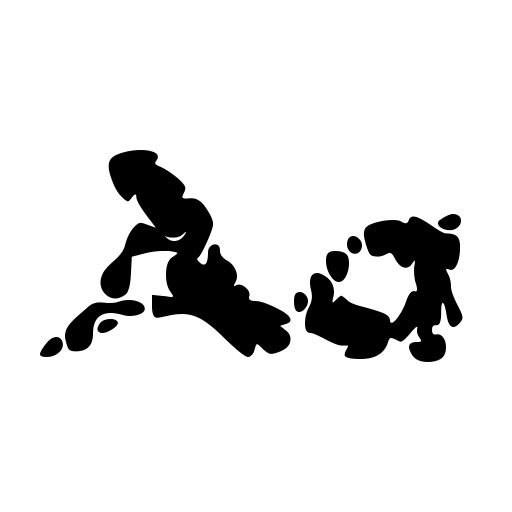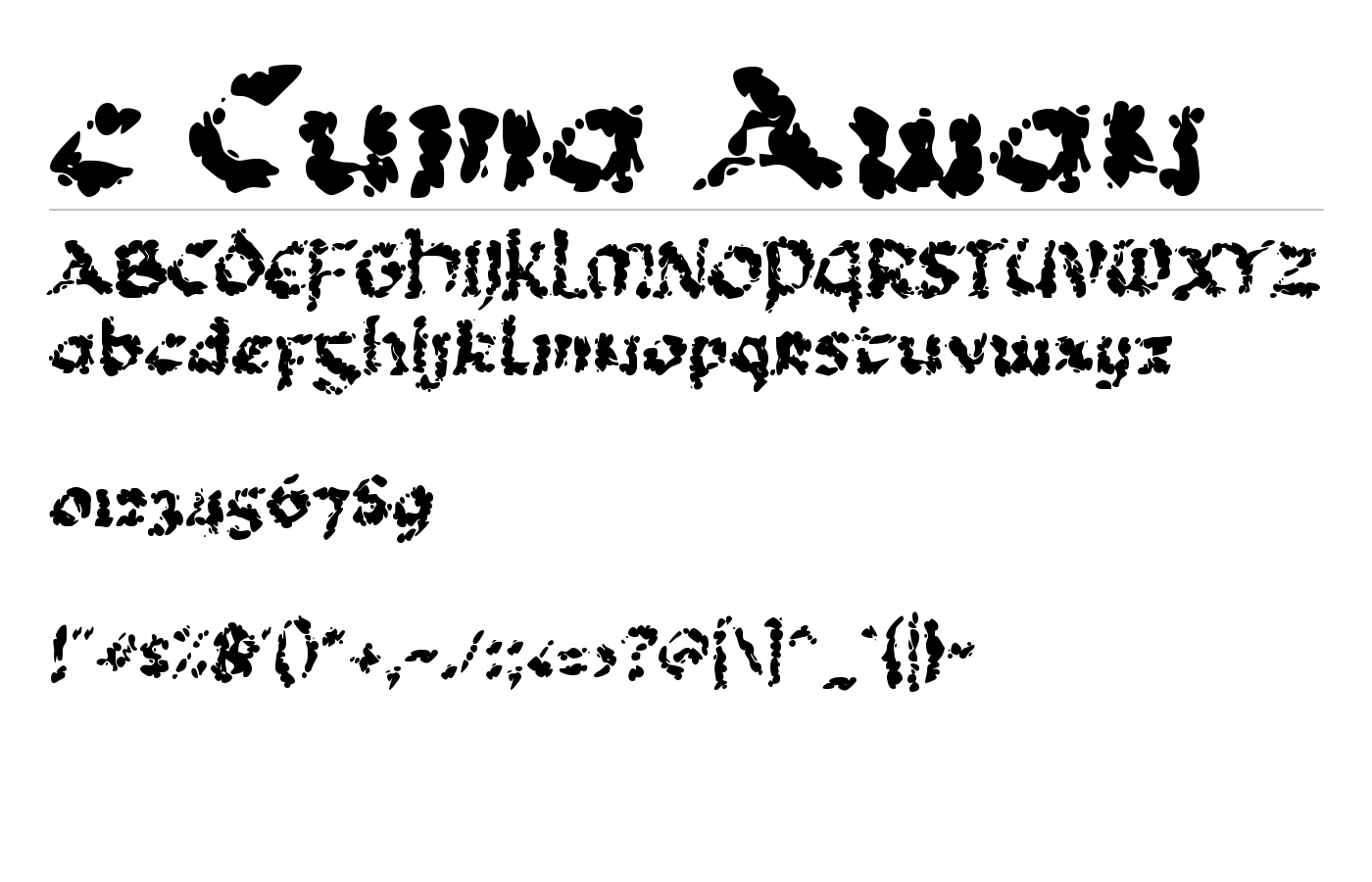
Cuma Awan is a bold, decorative font with an irregular, cloud-like texture that gives it a playful and organic feel. Its rounded shapes and heavy weight make it eye-catching and ideal for creative projects that seek a fun, artistic vibe rather than traditional readability. This font is perfect for logos, posters, or branding that aims to stand out with a unique, whimsical style.
c Cuma Awan Font